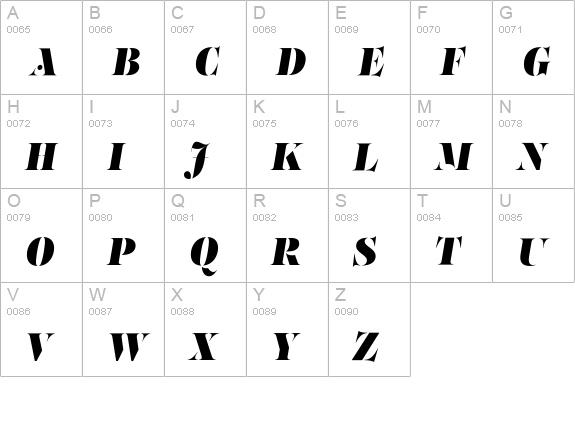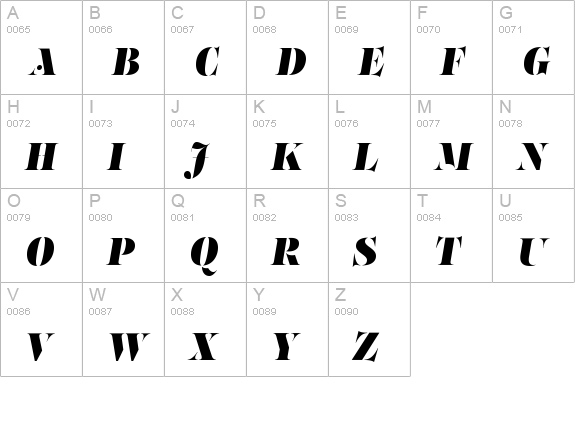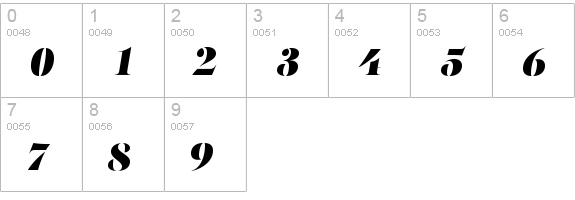
PFRegalStencilPro-UBlackItalic is a bold and elegant typeface that commands attention with its striking presence. The sharp edges and clean lines of this stencil font give it a modern and sophisticated look, making it perfect for titles, headers, and other display purposes. The combination of black weight and italic style adds a touch of drama and flair to any design project. What sets PFRegalStencilPro-UBlackItalic apart is not just its aesthetic appeal, but also the fact that it is available for free download at FontsMarket.com. This means that you can easily access and use this high-quality font in your creative work without any cost. Whether you are designing posters, labels, or branding materials, PFRegalStencilPro-UBlackItalic offers a versatile and eye-catching option that will elevate your designs to the next level.